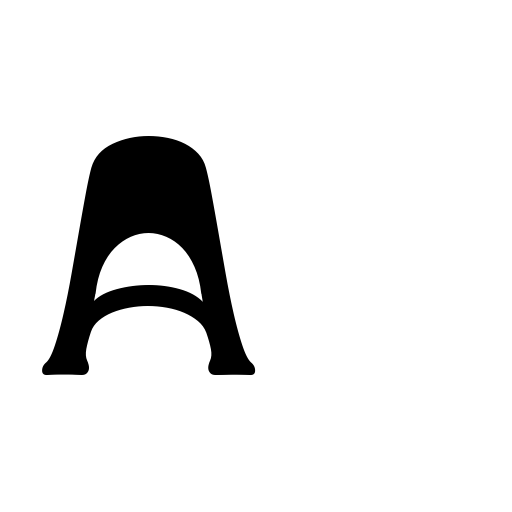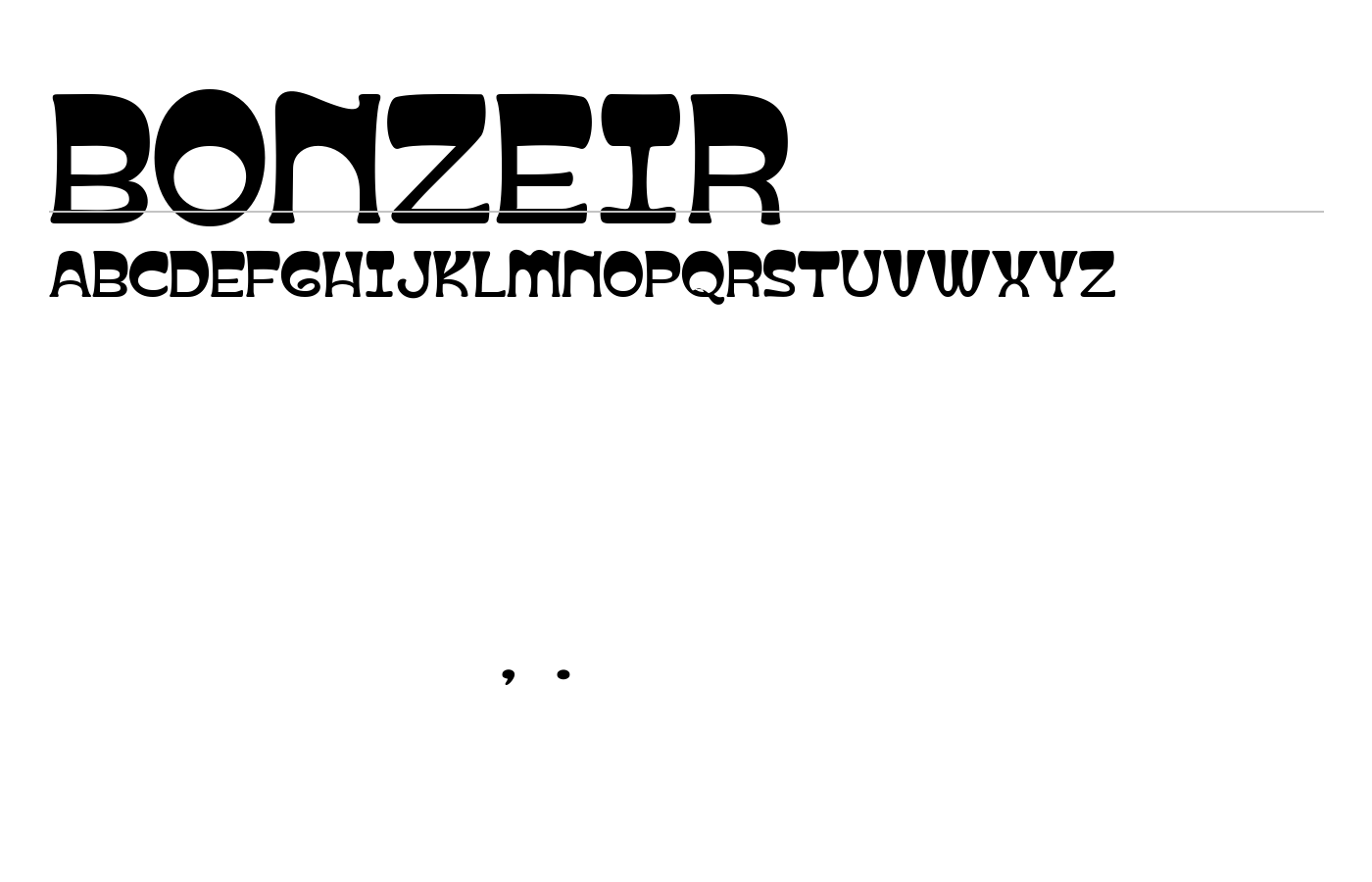
BONZEIR is a bold, playful serif font with unique, chunky letterforms that feature a high x-height and quirky, irregular shapes. Its thick strokes and slightly condensed width give it a strong presence, making it ideal for eye-catching headlines and creative branding where a fun and distinctive style is desired. This font works wonderfully in logos, posters, and editorial designs seeking a vintage yet whimsical personality.
BONZEIR Font